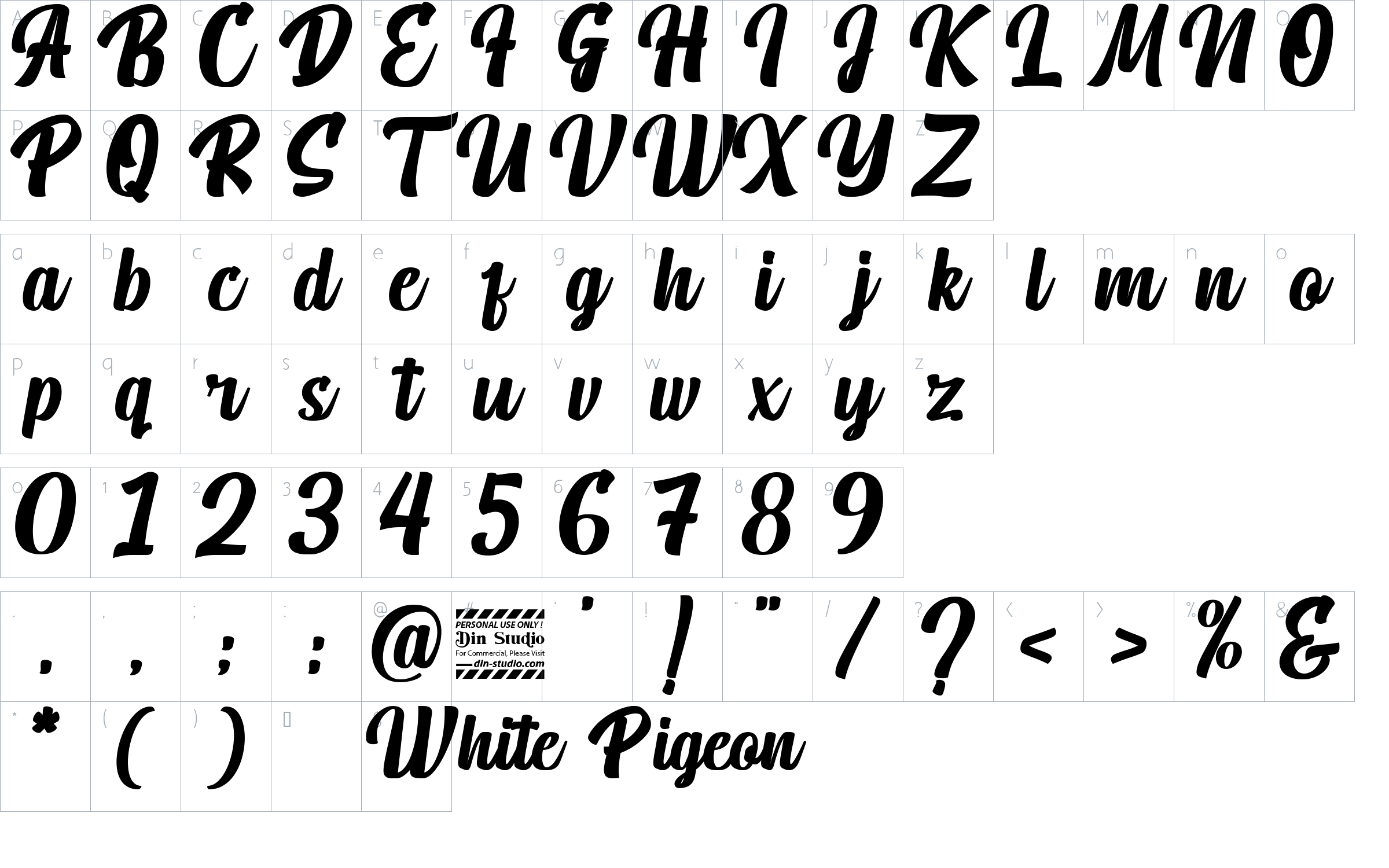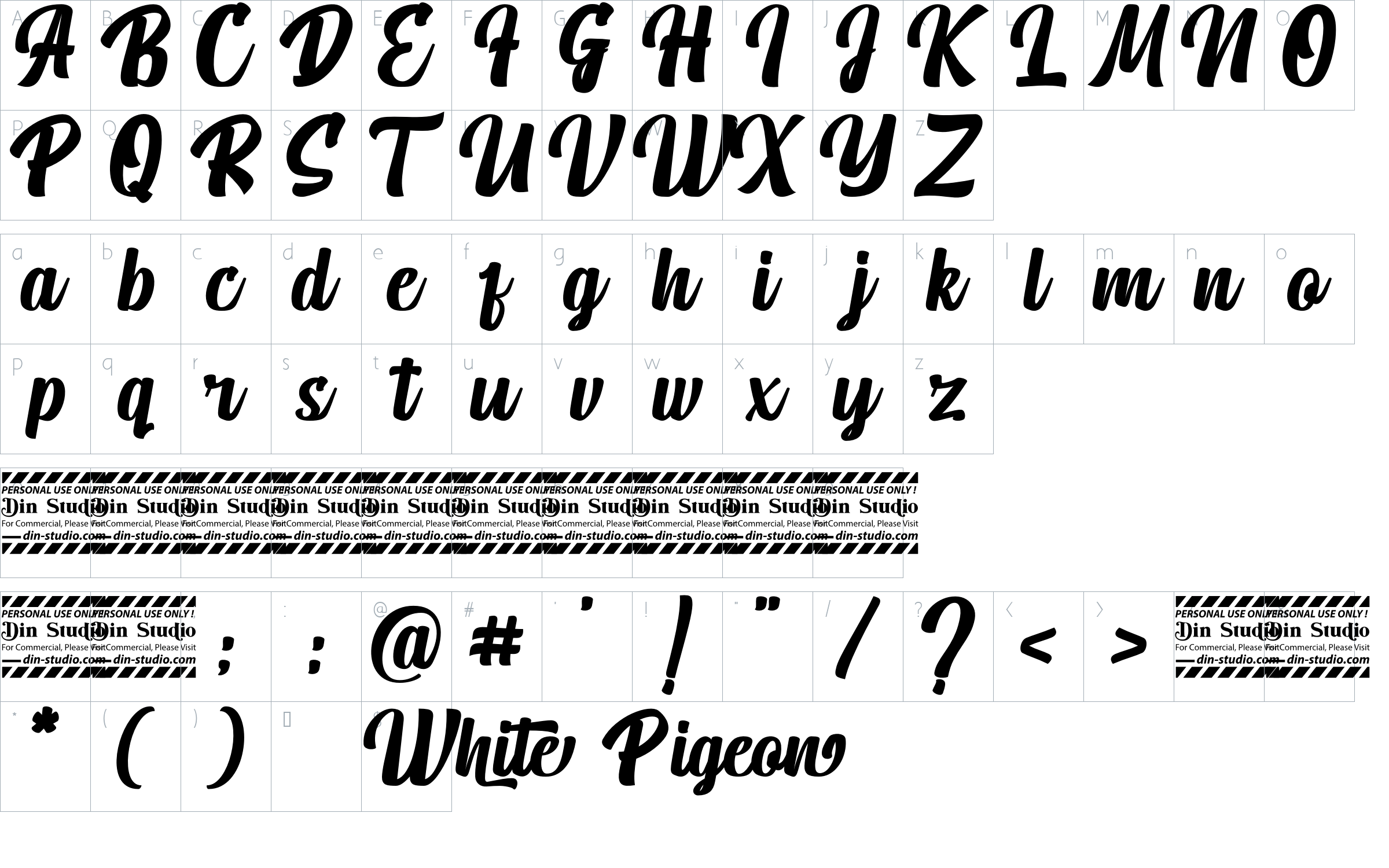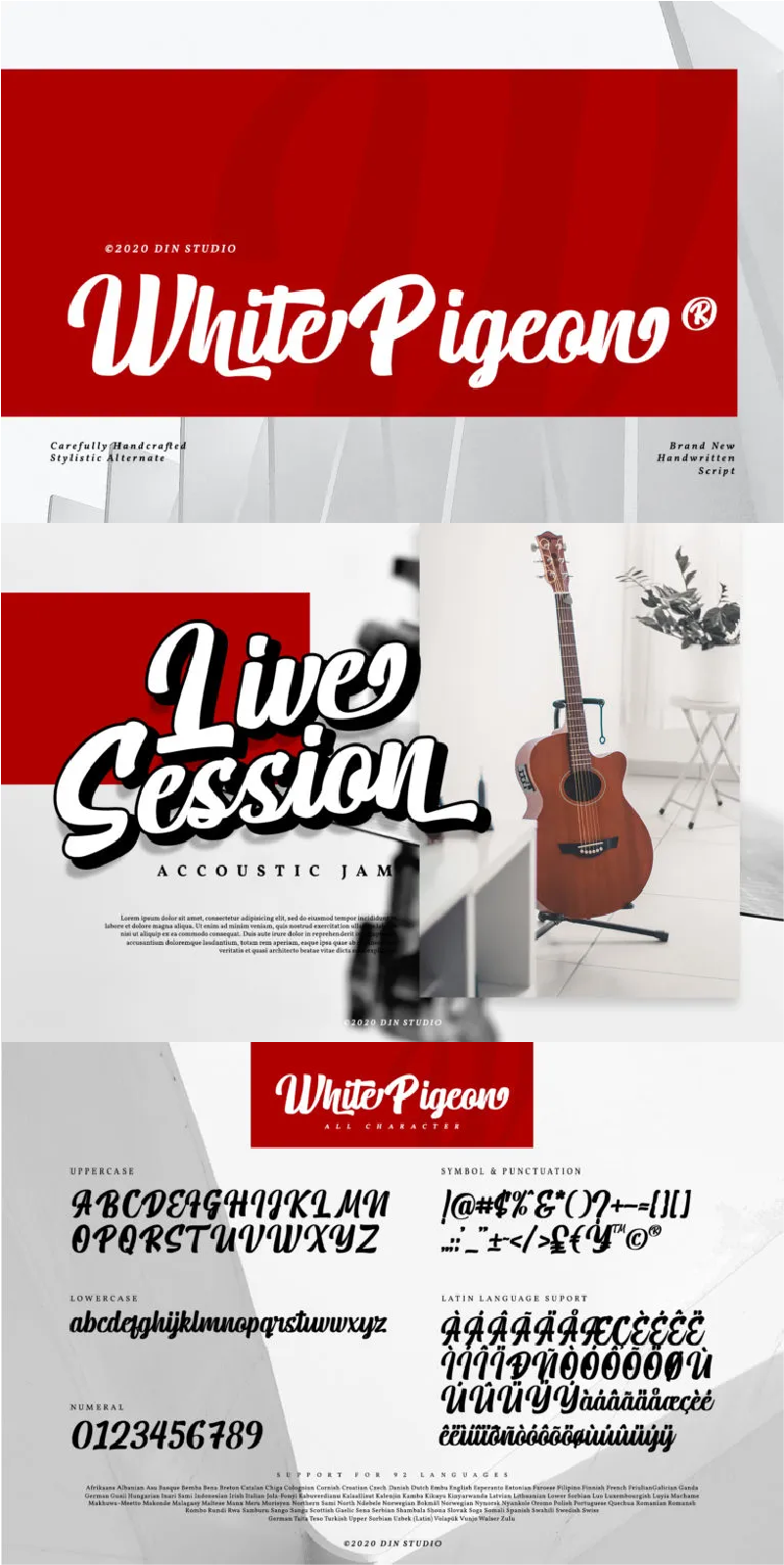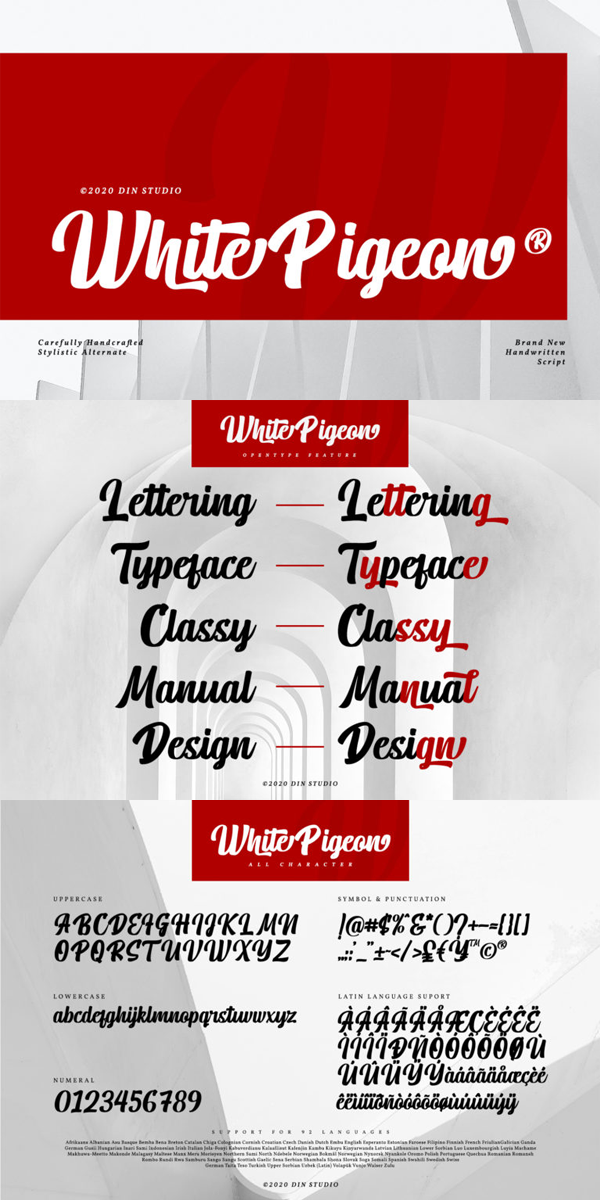
White Pigeon Font
About White Pigeon
White Pigeon is a modern handwritten font. It brings a beautiful and attractive typeface. Made for any professional project branding. It is the best for logos, branding, wedding and quotes. See the previews above to get some inspiration on how you can use them.
– Stylistic Set
– Beautiful Ligatures